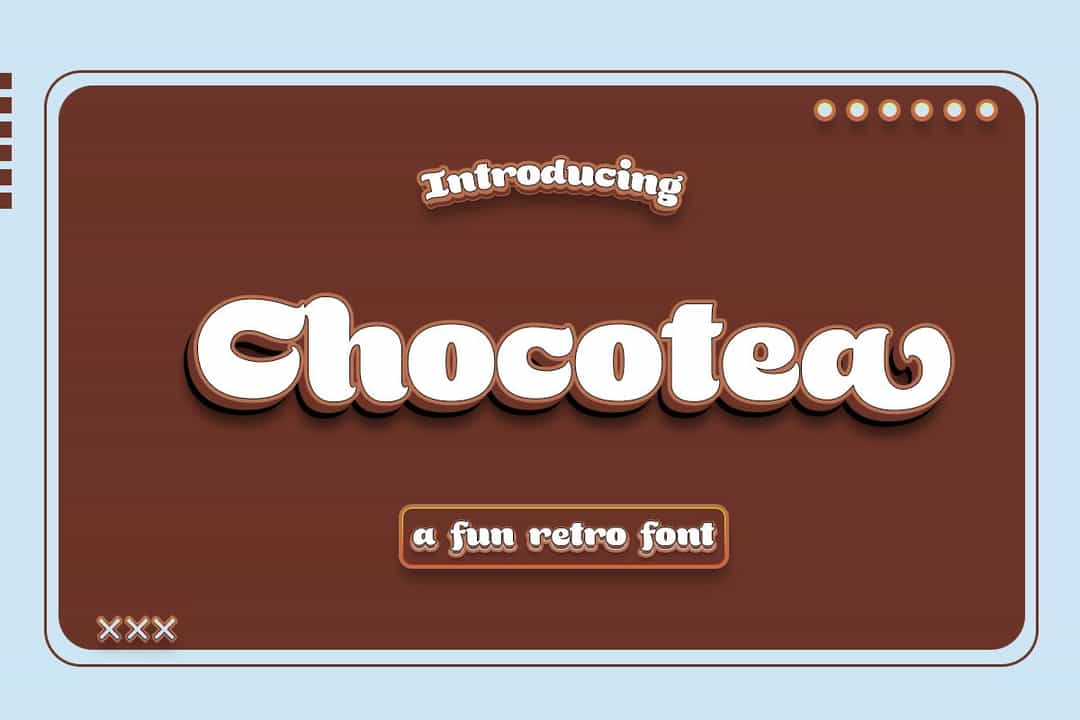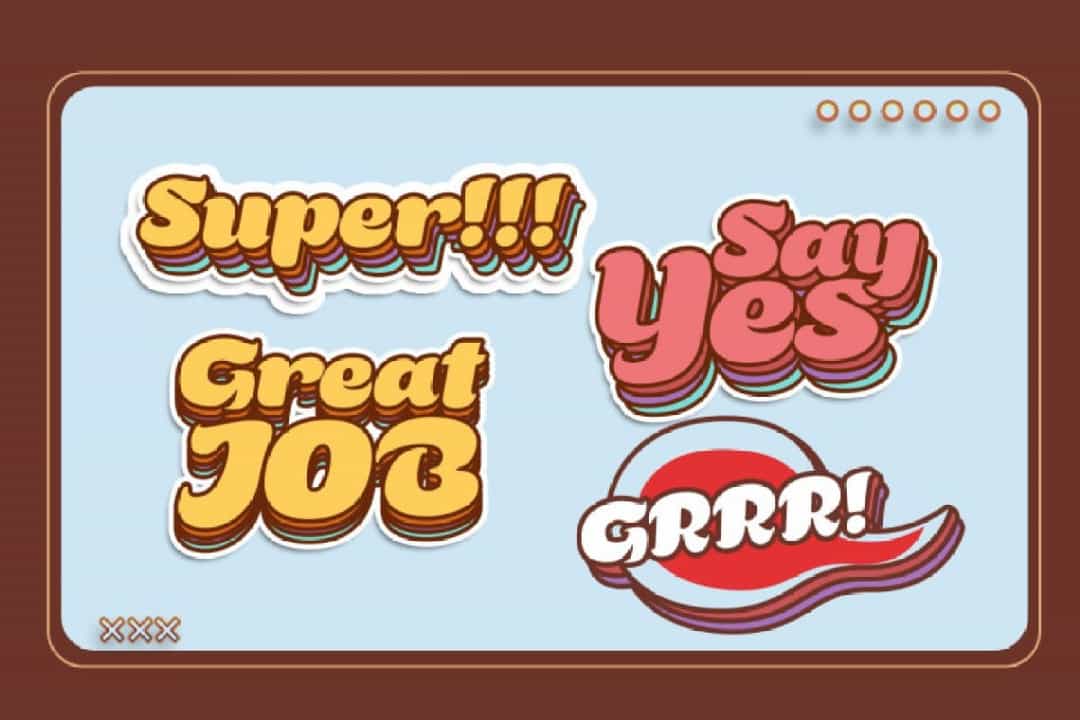
Chocotea is a vibrant and charming retro typeface. A symbol of fun and authenticity, Chocotea makes the ideal addition to any activity with children or school assignments – showcase this memorable script design to see it bring them alive!